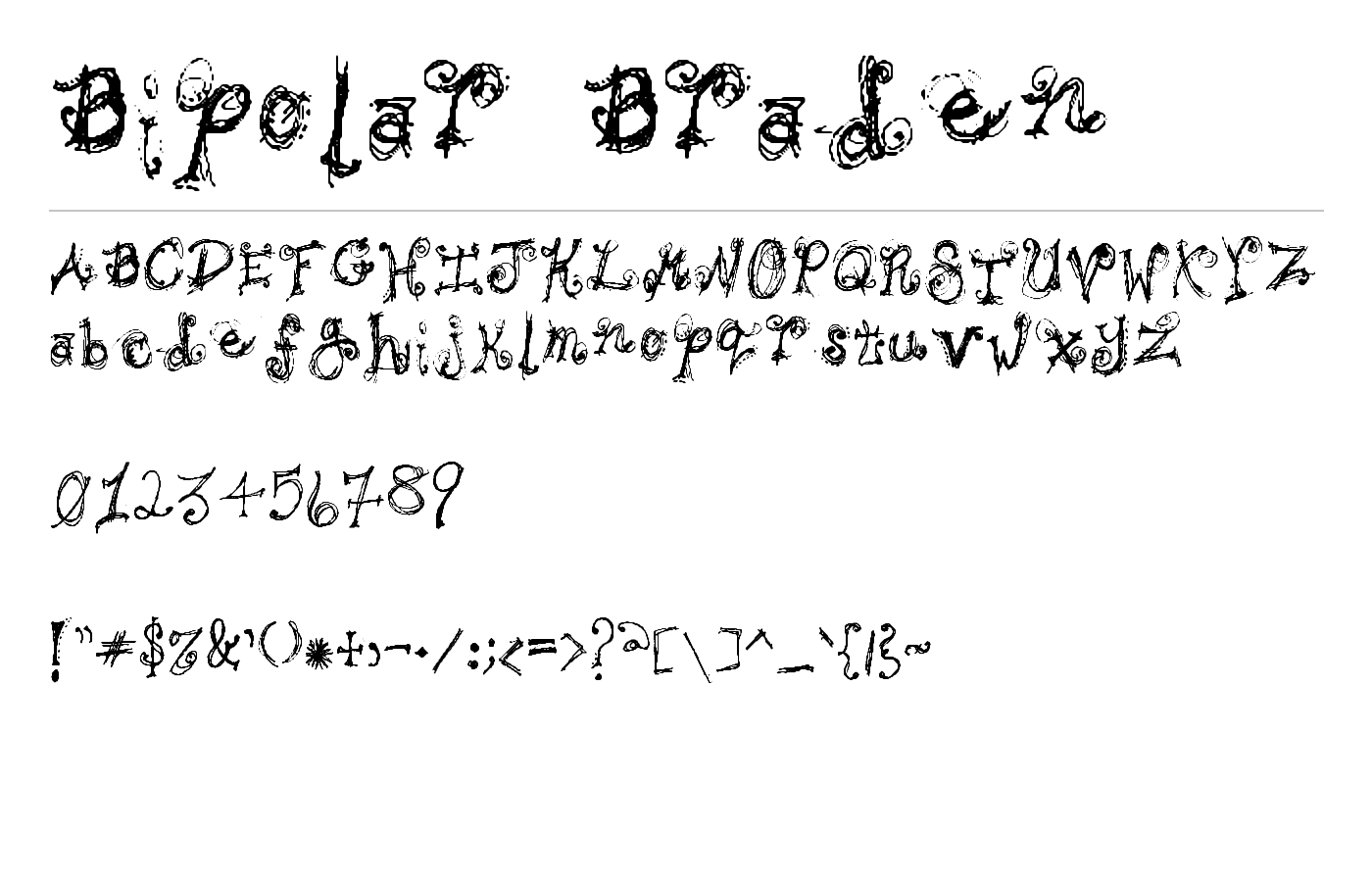
Bipolar Braden is a decorative, hand-drawn serif font with an intricate, distressed texture that gives it a quirky and artistic vibe. Its playful irregularities and unique letterforms make it perfect for creative projects, eye-catching posters, and designs that seek an edgy, unconventional look. This font works best in display uses where its distinct personality can truly shine.
Bipolar Braden Font
About Bipolar Braden Font